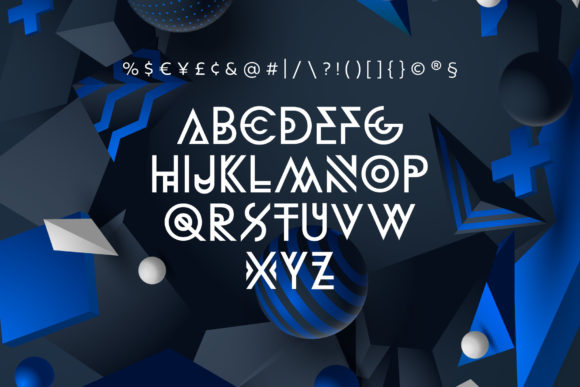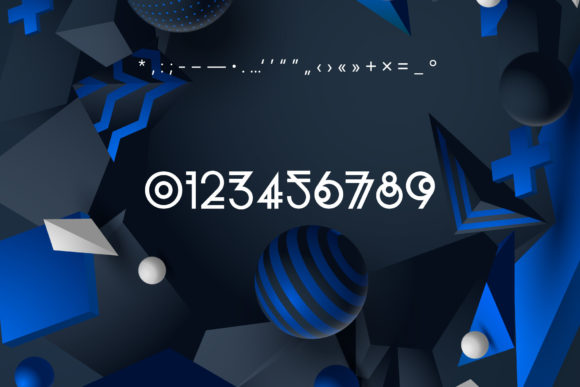
Introduction to Lype Font
Lype is a cool and geometric styled display font.
Expertly designed to make your creation look out of this world, this font will look gorgeous on a variety of ideas This font is ideal for writing web designs, business cards, or pretty much anything else that requires a unique touch.
Key Features of Lype Font
Why Choose Lype Font?